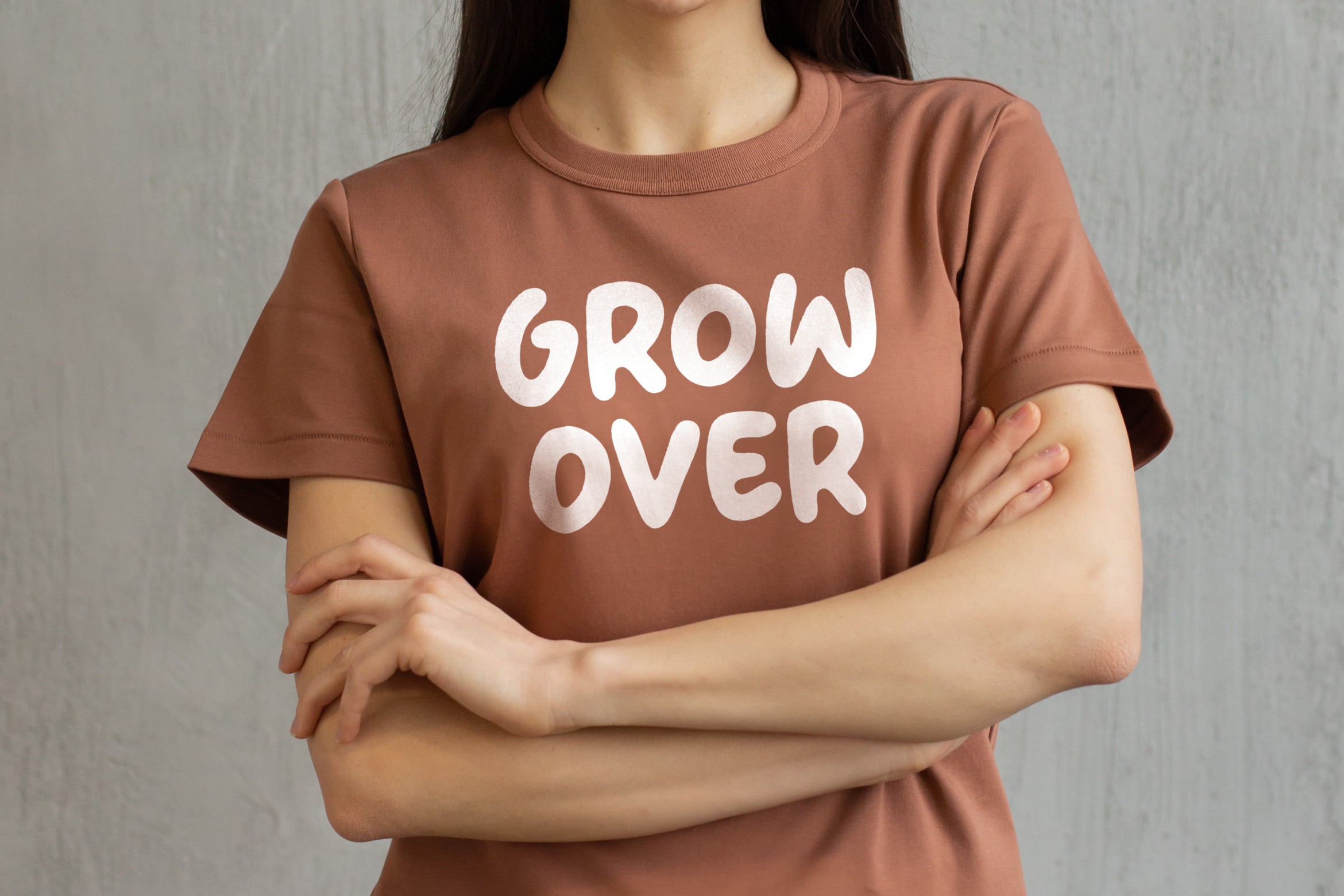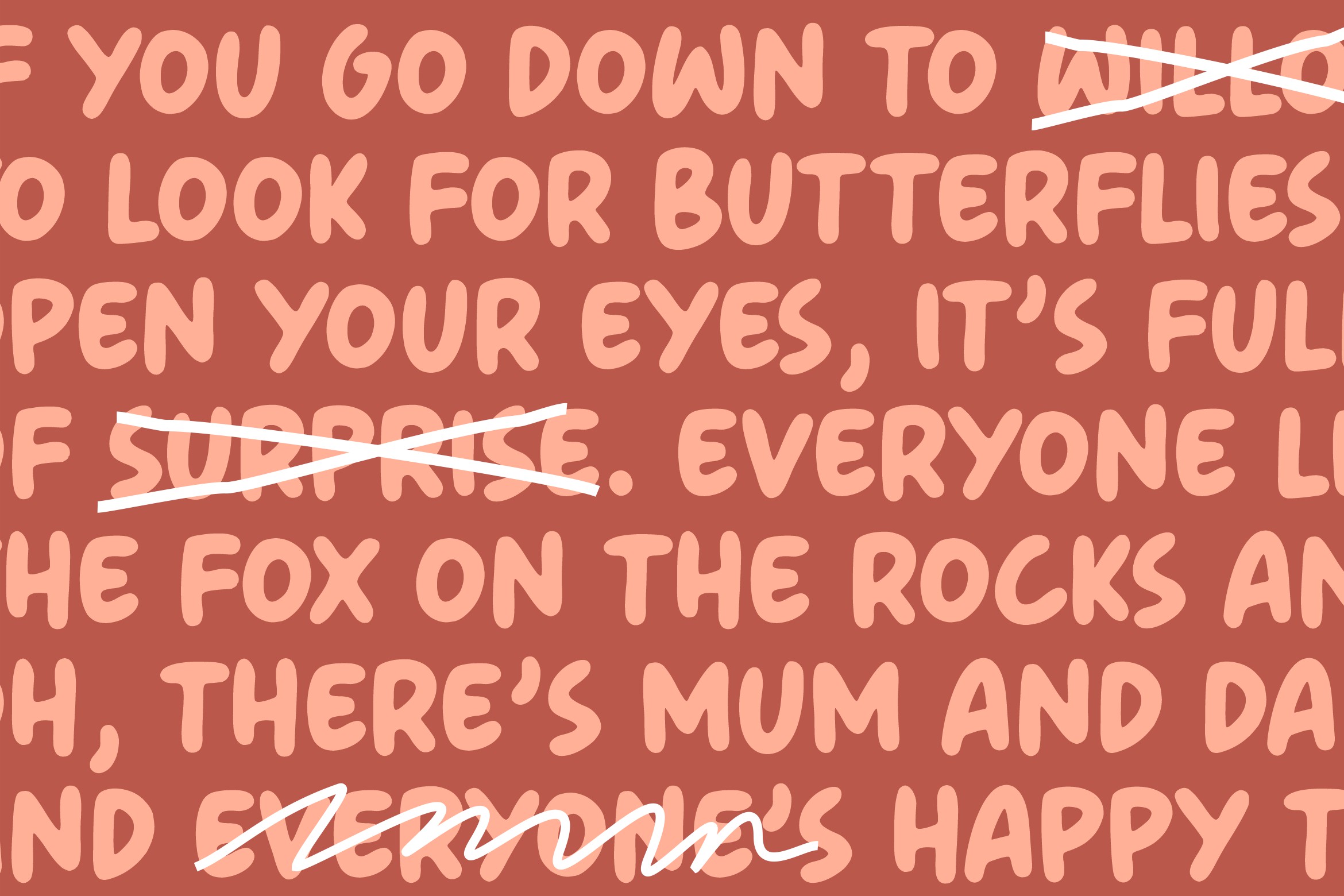
FROZENFLARE Font
FROZENFLARE Display Font
This is a Sweet and Soft Handbrushed Font. It is suitable for svg designs, mug decorations, pottery, shirts, hats, tote bags, card making, wall art, interior prints, and various other creations. Whatever the topic, this font will be a wonderful asset to your font library, as it has the potential to enhance any creation.
This font only has all uppercase letters, but if accessed with lowercase letters it will automatically become uppercase.